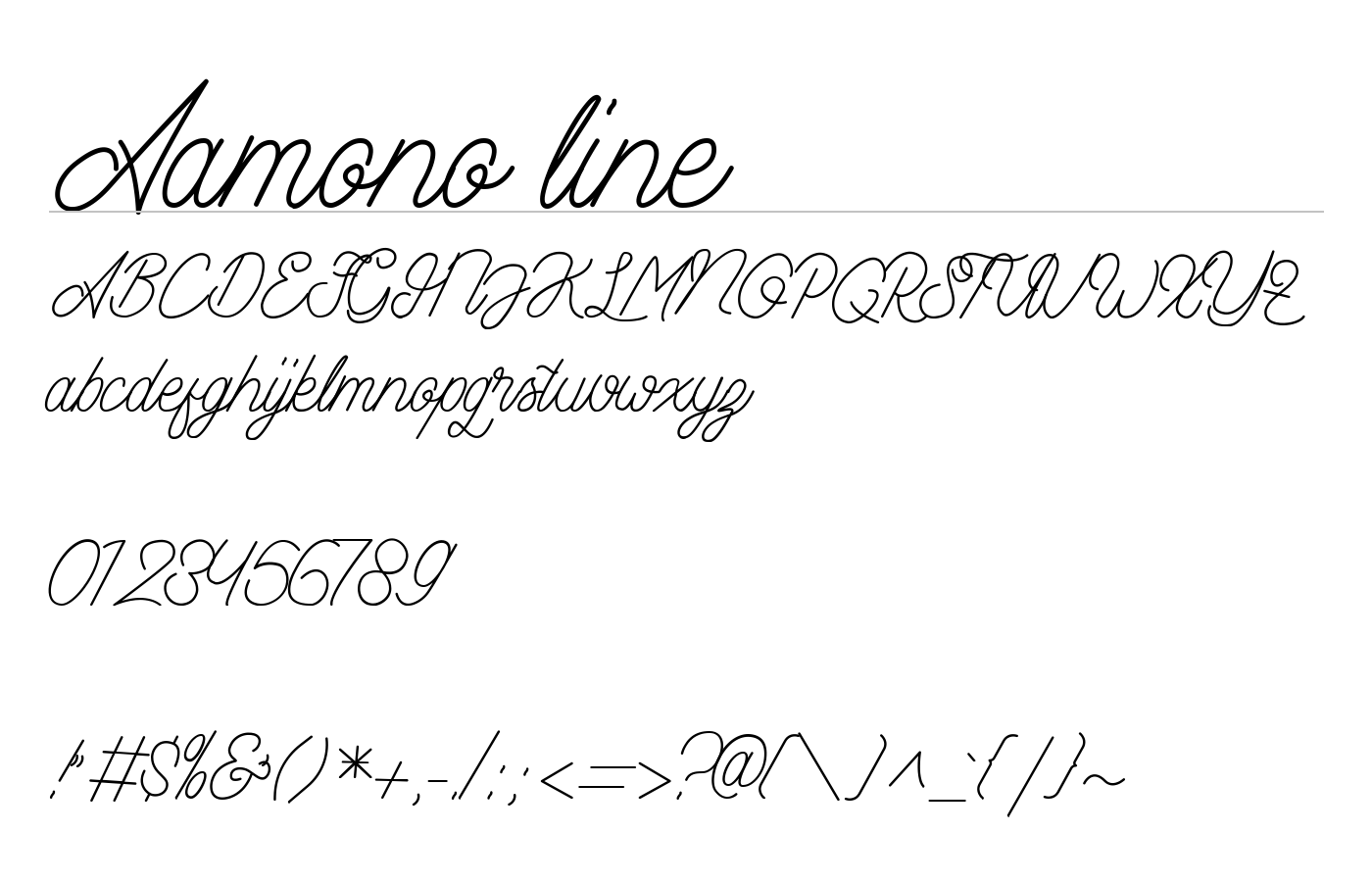
Aamonoline is a delicate, elegant script font characterized by its thin, flowing strokes and graceful cursive style. Its refined, handwritten quality makes it ideal for invitations, branding, and designs needing a touch of sophistication and personal charm. This font’s light weight and airy letterforms work beautifully in decorative uses where a subtle, stylish flair is desired.
Aamonoline Font
About Aamonoline Font
| Designer | Ageng Jatmiko |